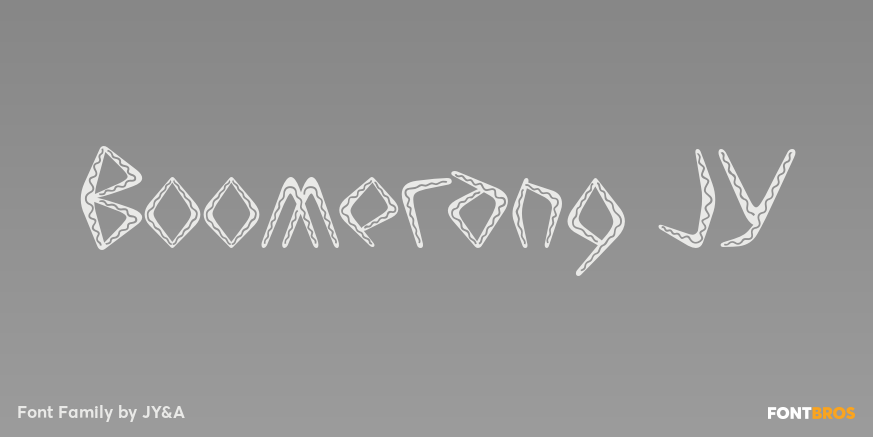
Boomerang JY
About Boomerang JY
Based around the Australian boomerang, Greg Bastin\’s design originally appeared on private Christmas cards and individual projects. It was formalized into a font in 2002 by David Philpott (JY Circles) and brings a quirky antipodean style to the JY&A Fonts…